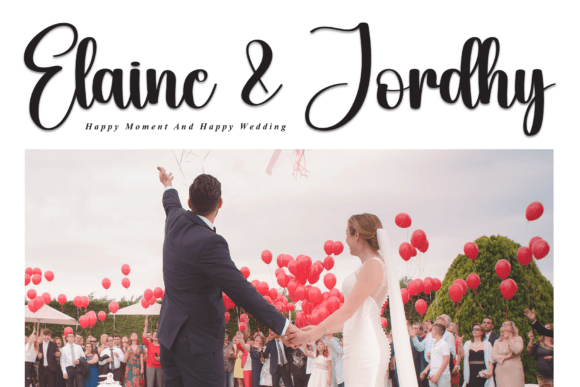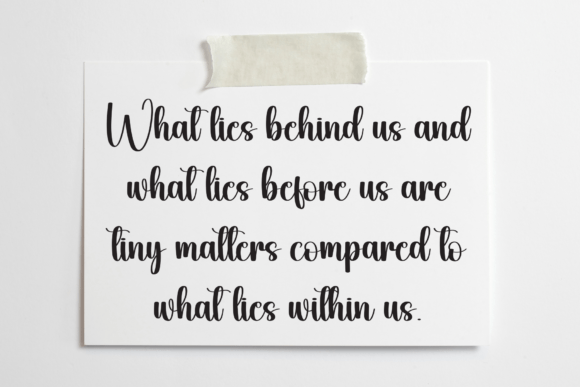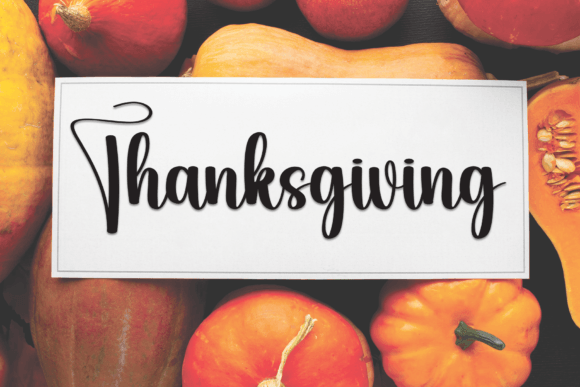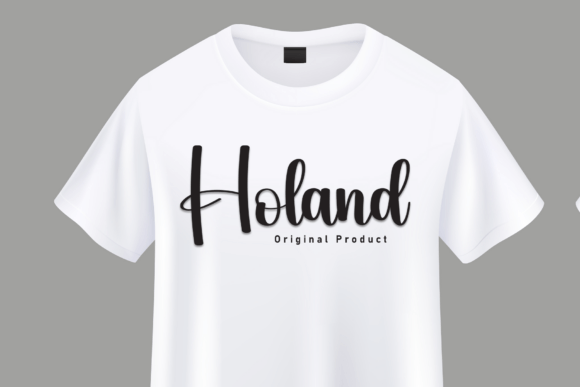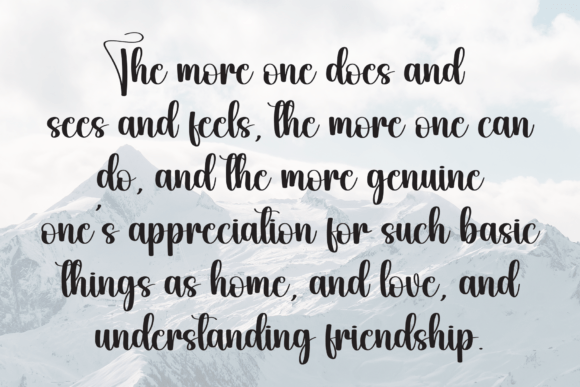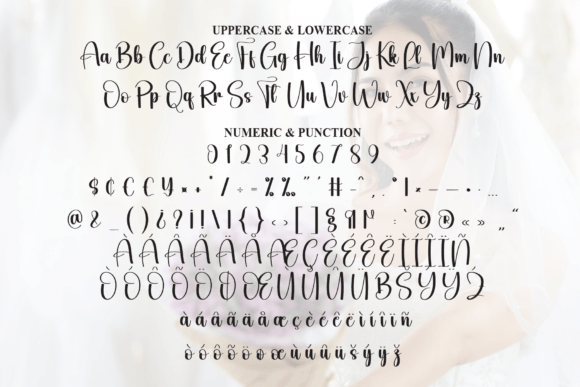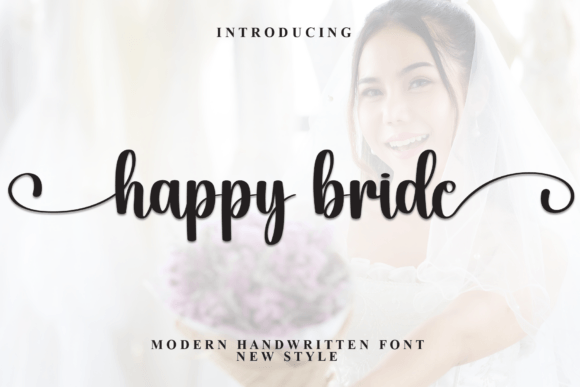
Introducing Happy Bride Font: The Perfect Choice for Wedding Designs and More
Are you a designer or crafter looking for a font that exudes joy, elegance, and playfulness? Look no further than the Happy Bride Font. This charming handwritten font is designed to bring a touch of warmth and personality to any design project, making it an ideal choice for wedding invitations, greeting cards, and more.
What Makes Happy Bride Font So Special?
Happy Bride Font is a beautifully crafted handwritten font that boasts a joyful, flowing style. Its smooth, elegant letters are designed to feel playful yet graceful, making it the perfect choice for designers and crafters who want to add a personal touch to their work.
Whether you’re creating wedding invitations, greeting cards, or other paper crafts, Happy Bride Font is sure to impress. Its unique blend of playfulness and sophistication makes it an excellent choice for any project that requires a touch of whimsy and romance.
Key Features of Happy Bride Font
• Handwritten style: Happy Bride Font features a beautiful, handwritten style that’s perfect for adding a personal touch to your designs.
• Joyful and flowing: The font’s joyful, flowing style is sure to bring a smile to anyone’s face.
• Smooth and elegant letters: The font’s smooth, elegant letters are designed to feel playful yet graceful.
• Perfect for wedding designs: Happy Bride Font is an excellent choice for wedding invitations, wedding planners, and other wedding-related designs.
• Versatile: The font can be used for a variety of design projects, including greeting cards, paper crafts, and more.
Here are a few tips for using Happy Bride Font in your designs:
• Pair it with other fonts: Happy Bride Font pairs well with other fonts, such as serif and sans-serif fonts. Experiment with different font combinations to find the perfect look for your design.
• Use it for headings and titles: The font’s playful, elegant style makes it perfect for headings and titles.
• Add a personal touch: Use Happy Bride Font to add a personal touch to your designs, such as in wedding invitations or greeting cards.
Benefits of Using Happy Bride Font
There are many benefits to using Happy Bride Font in your designs. Here are a few:
• Unique and eye-catching: The font’s unique, handwritten style is sure to grab attention and make your designs stand out.
• Emotional connection: The font’s joyful, flowing style is designed to evoke emotions and create a connection with your audience.
Who Can Benefit from Happy Bride Font?
Happy Bride Font is perfect for a variety of designers and crafters, including:
• Wedding designers: The font is an excellent choice for wedding designers who want to create beautiful, unique wedding invitations and wedding-related designs.
• Graphic designers: Graphic designers can use Happy Bride Font in a variety of design projects, including branding, packaging, and more.
• Paper crafters: Paper crafters can use the font to create beautiful, handmade cards and other paper crafts.
• Stationery designers: Stationery designers can use Happy Bride Font to create beautiful, unique stationery sets.
In conclusion, Happy Bride Font is a charming handwritten font that’s perfect for designers and crafters who want to add a touch of warmth and personality to their work. Its joyful, flowing style and smooth, elegant letters make it an excellent choice for wedding invitations, greeting cards, and more.